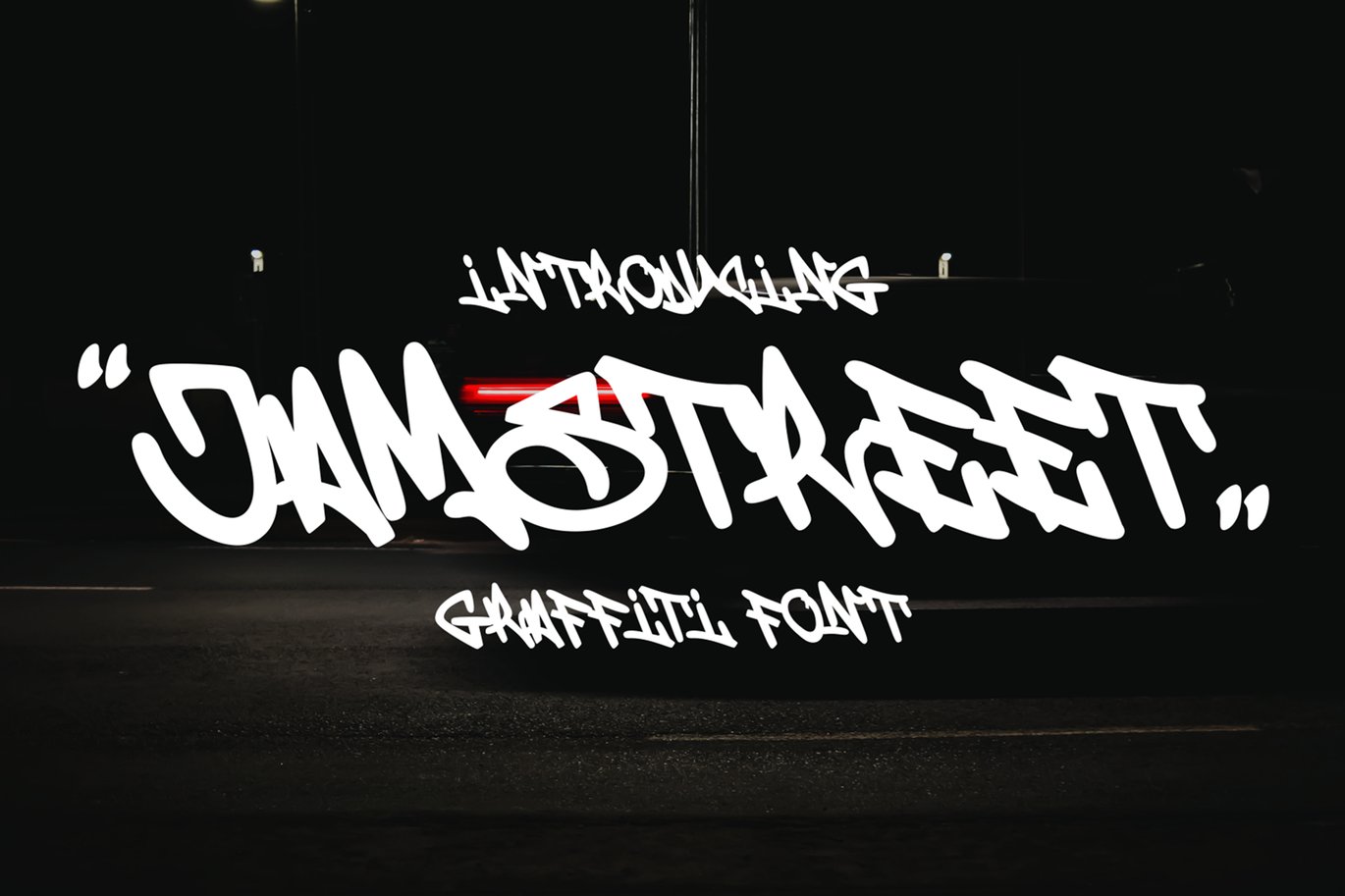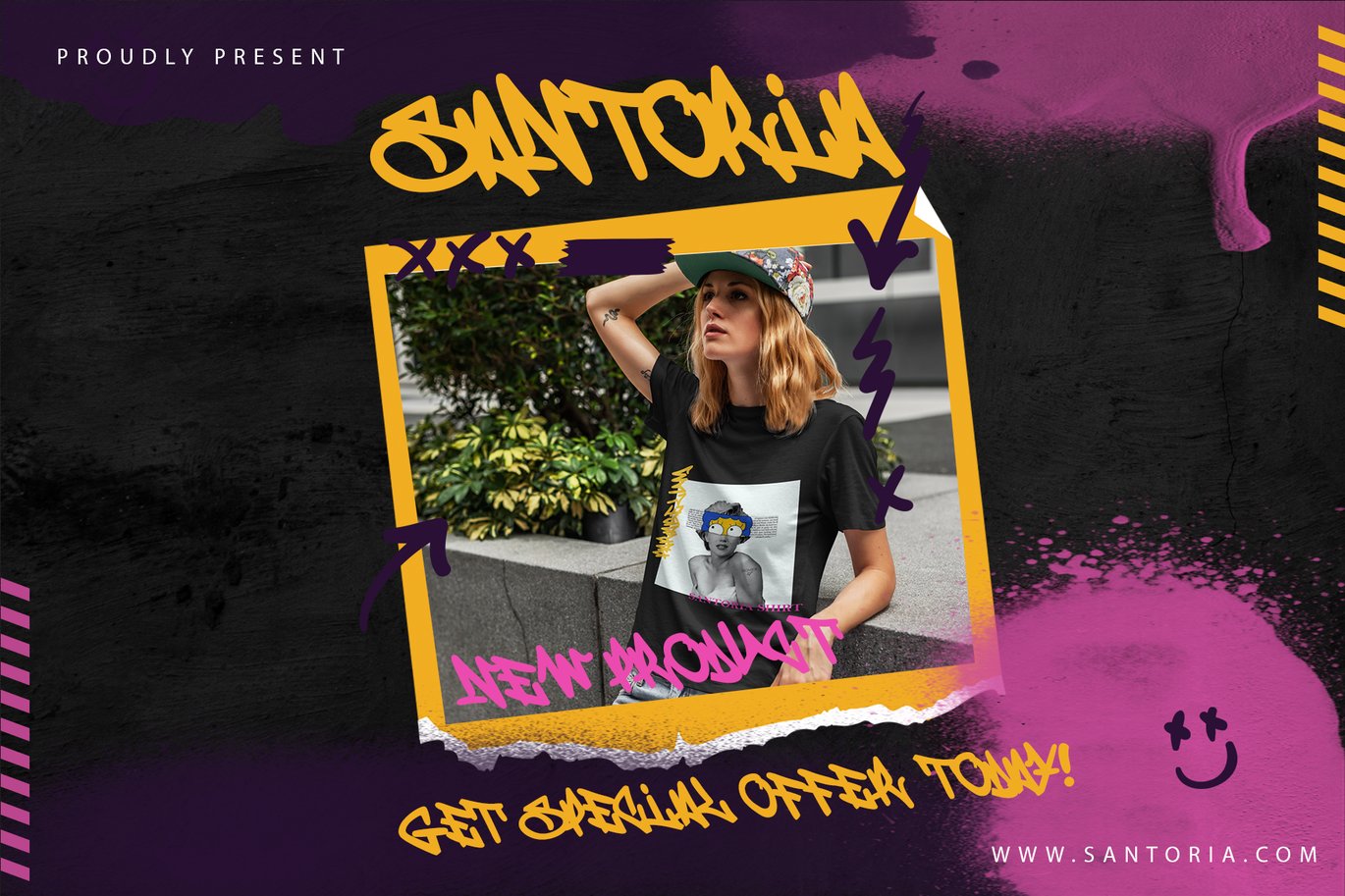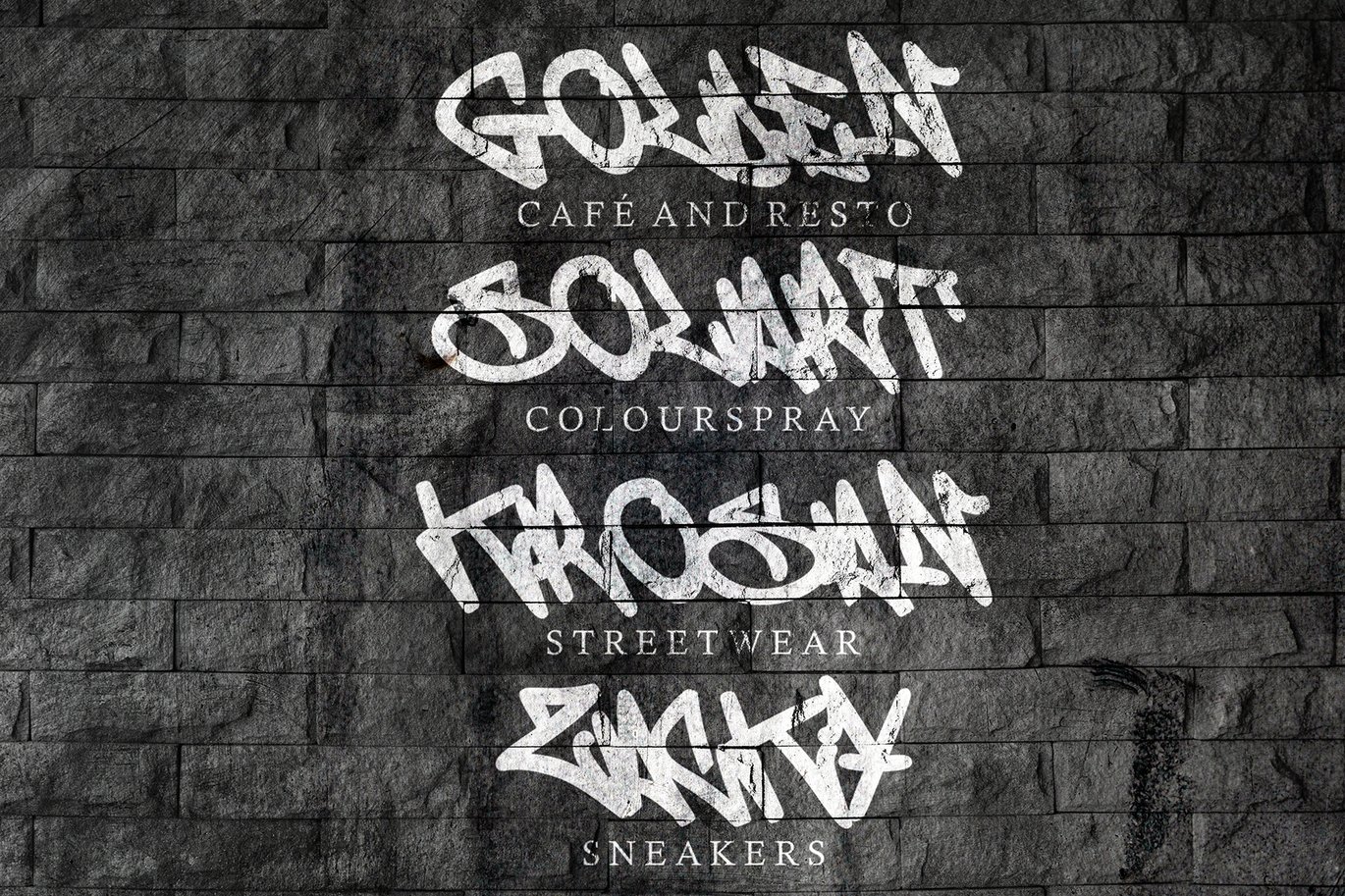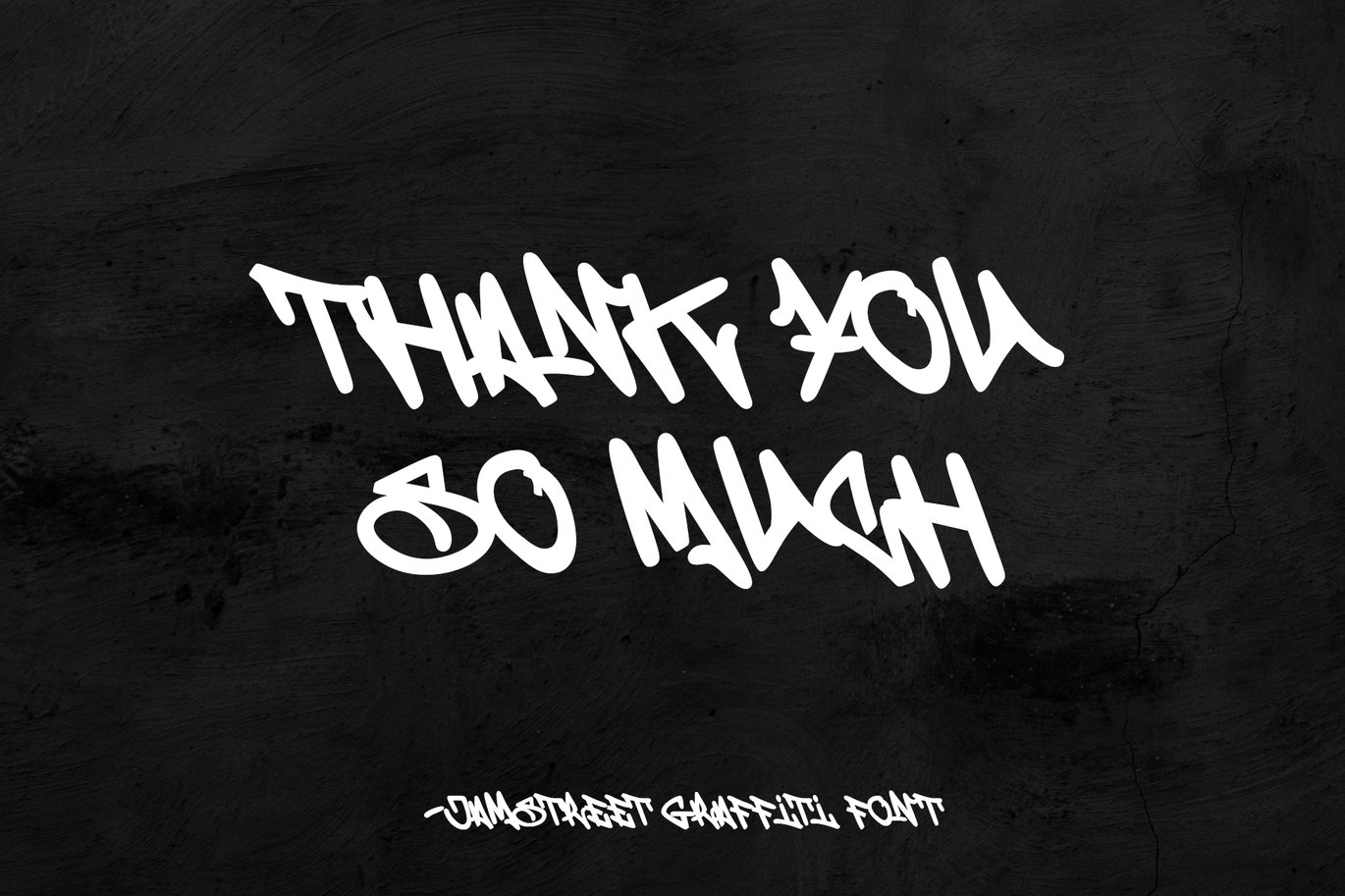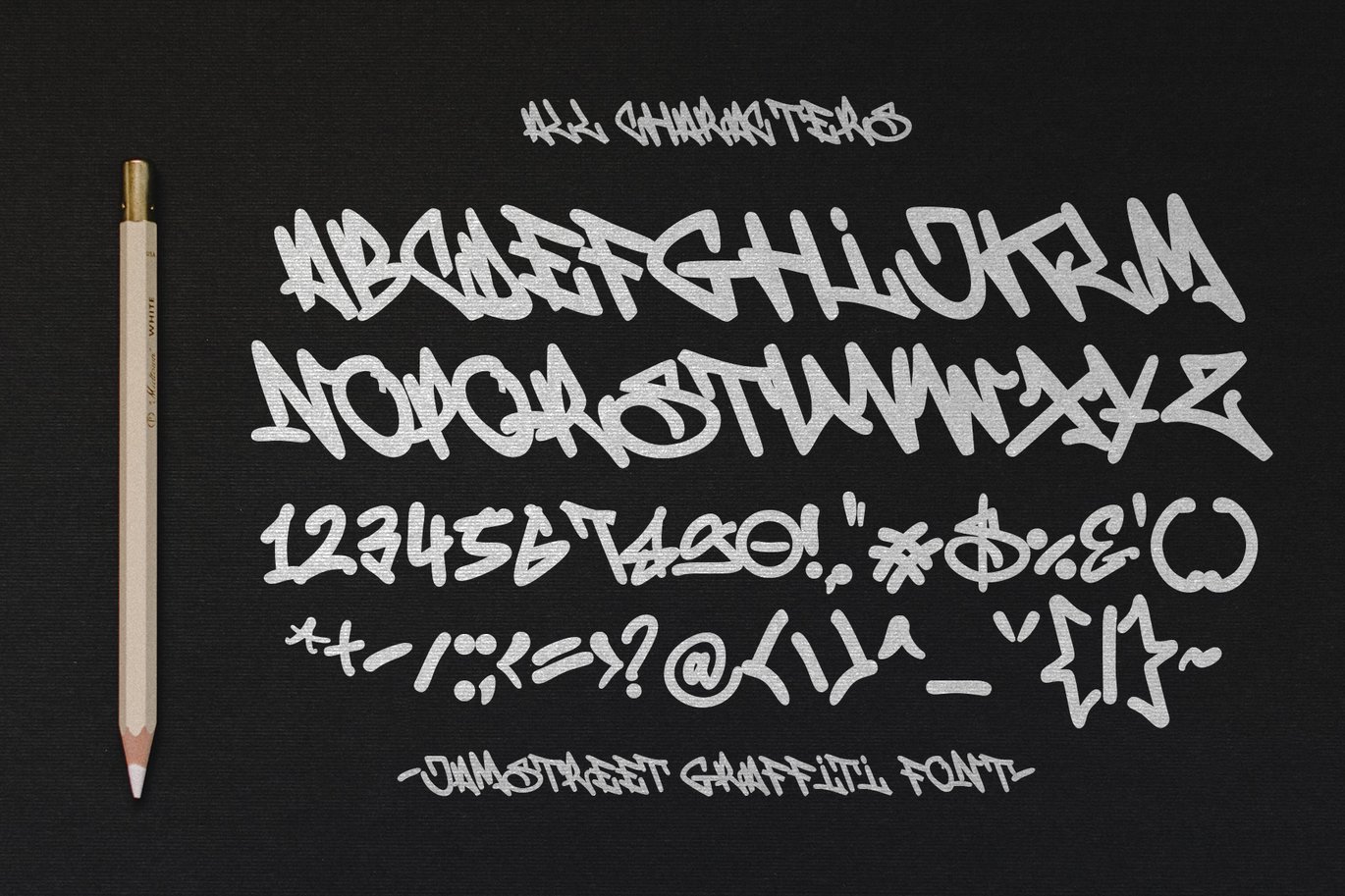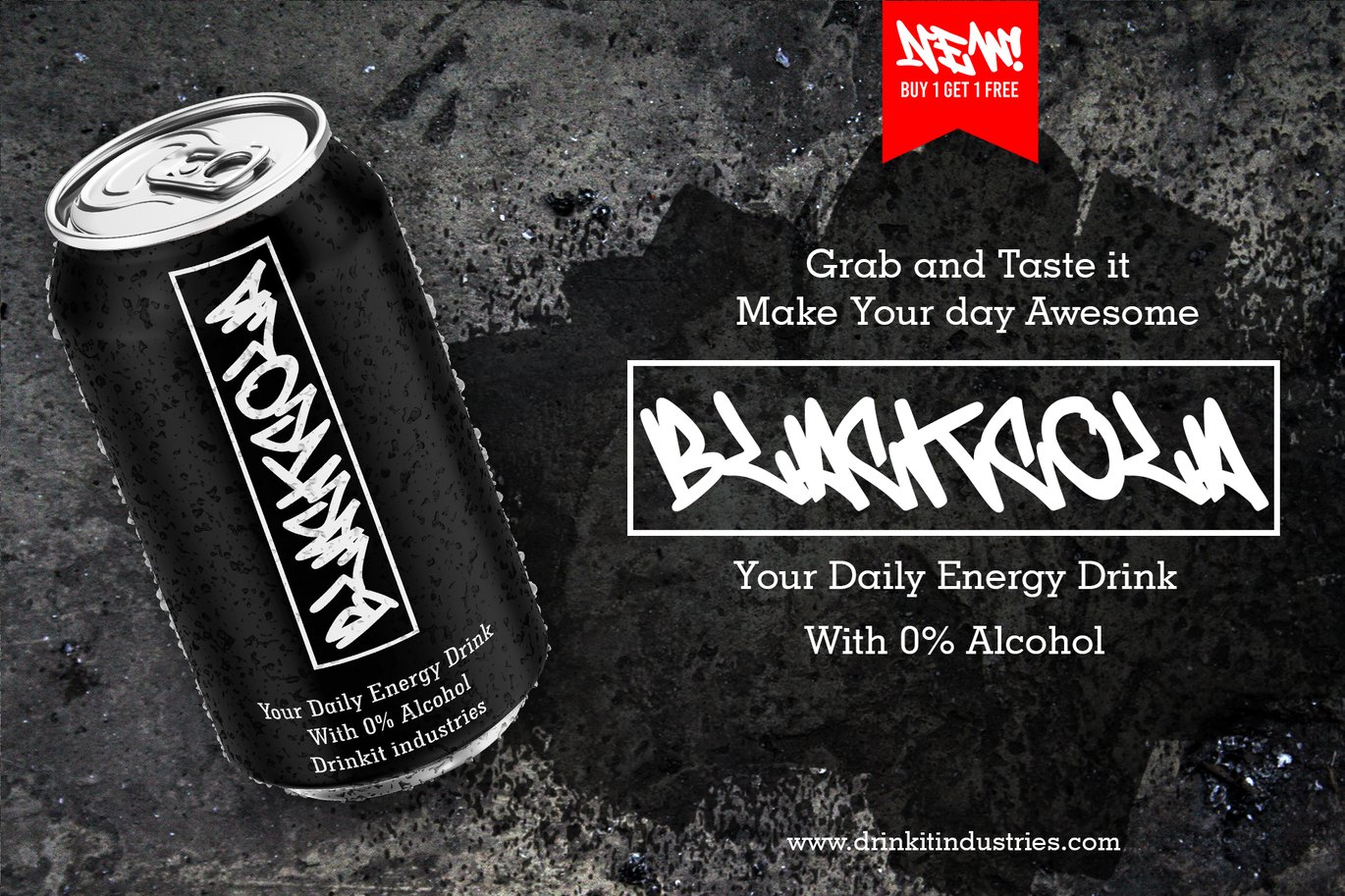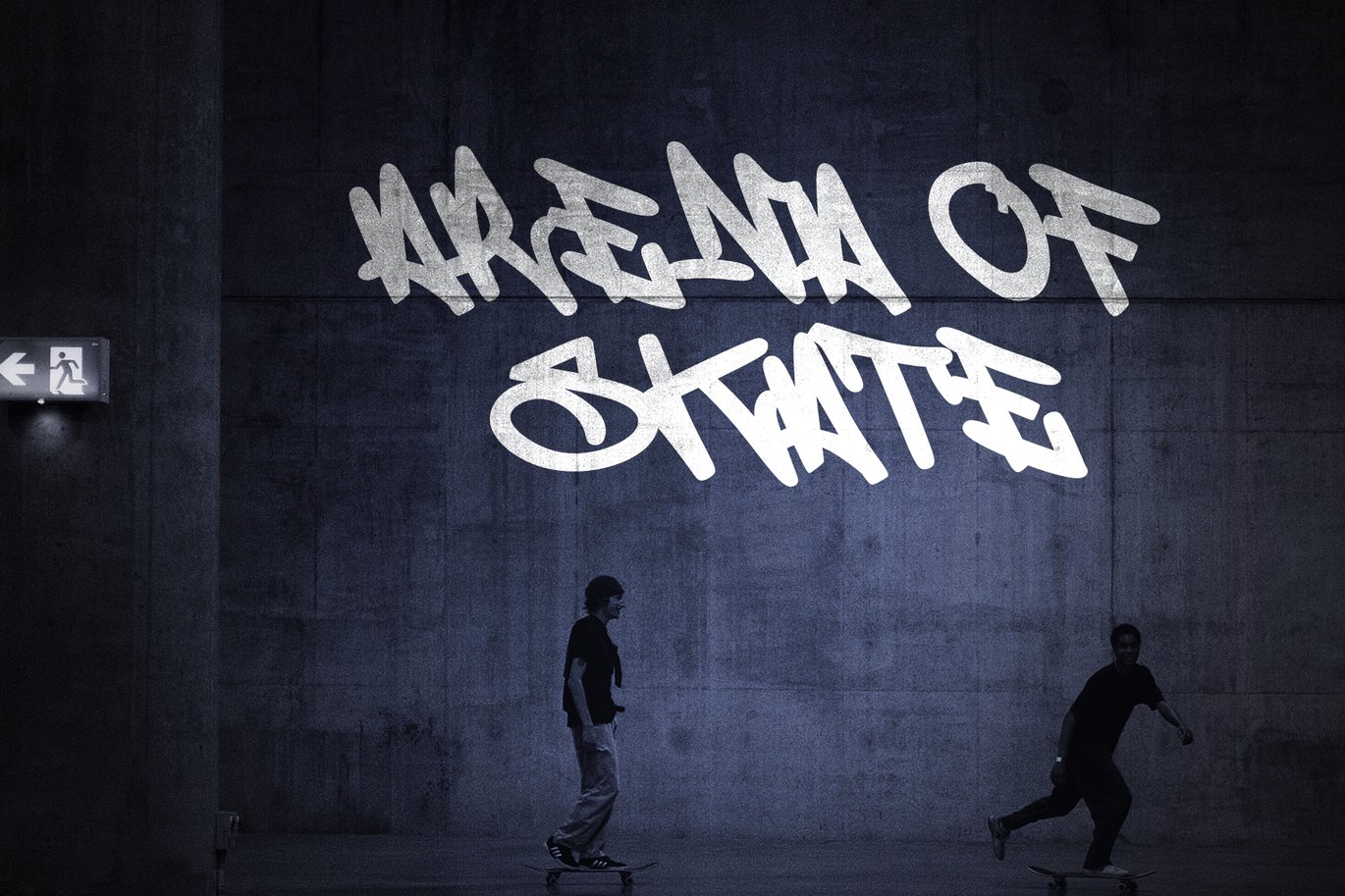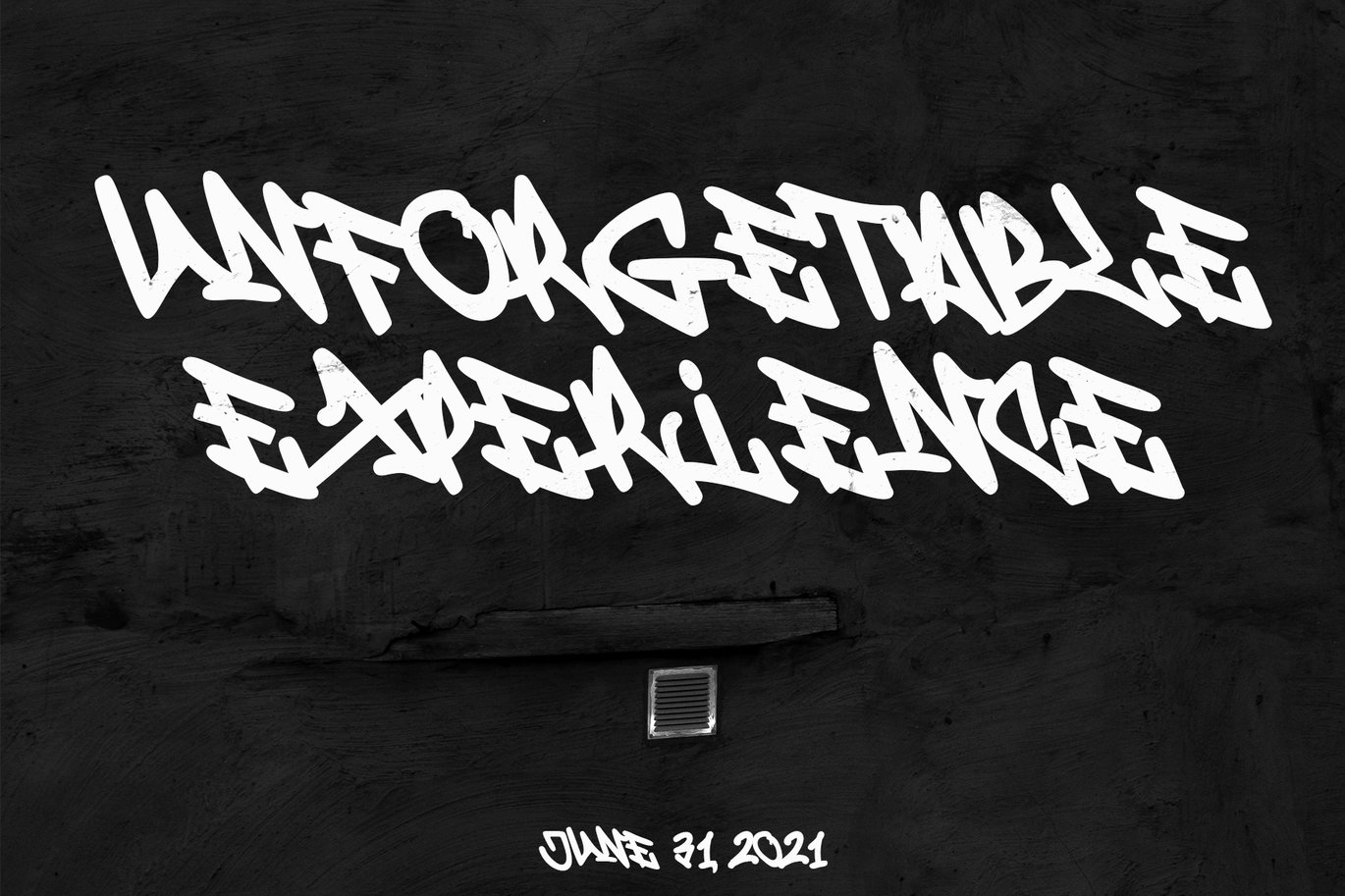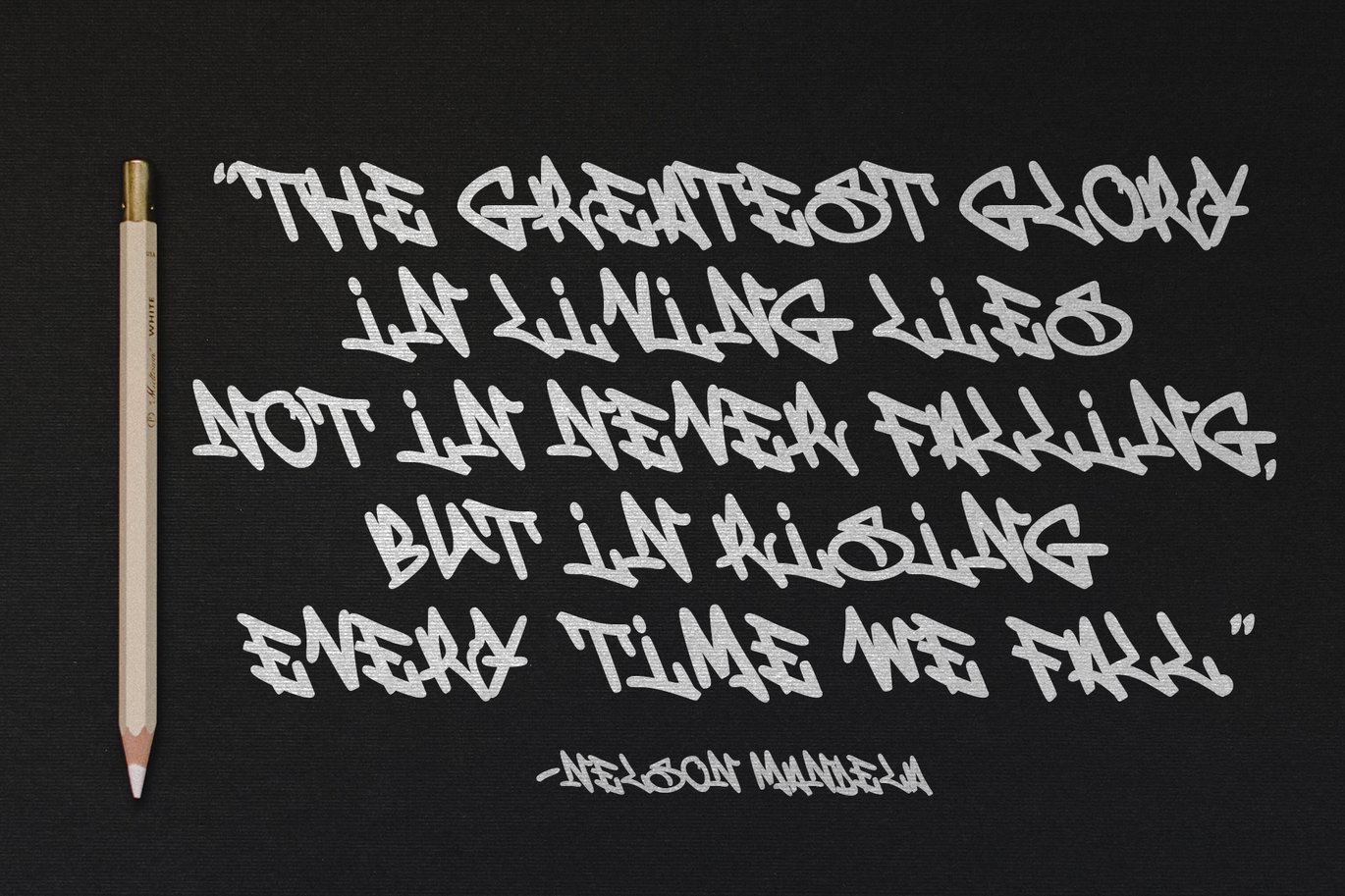
Jamstreet – Monoline Graffiti Font
Jamstreet Graffiti is a display font with a one-line graffiti style. It will elevate a wide range of design projects to the highest level, be it branding, headings, wedding designs, title, signatures, logos, labels, movie, video, magazine, logotype, crafting, packaging, advertising, and much more!